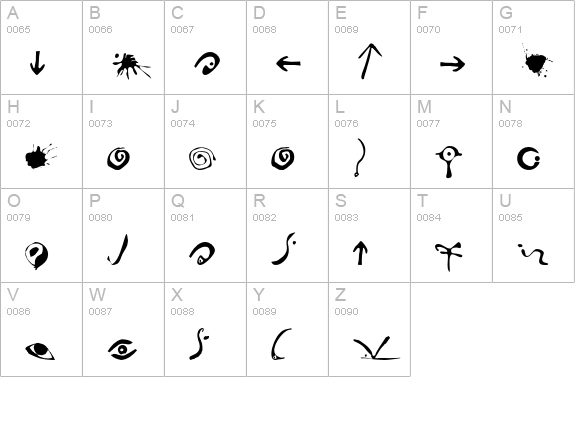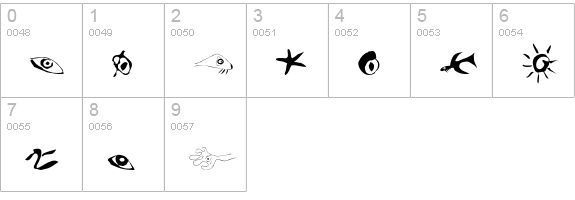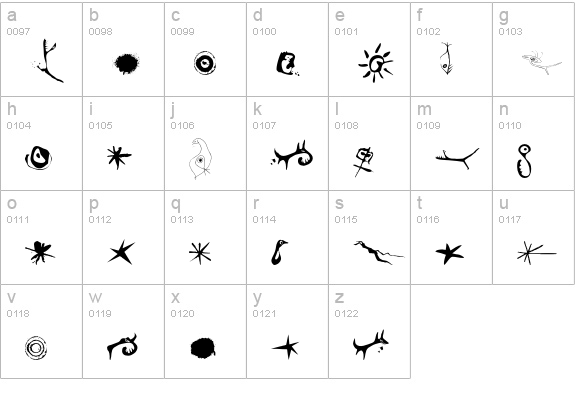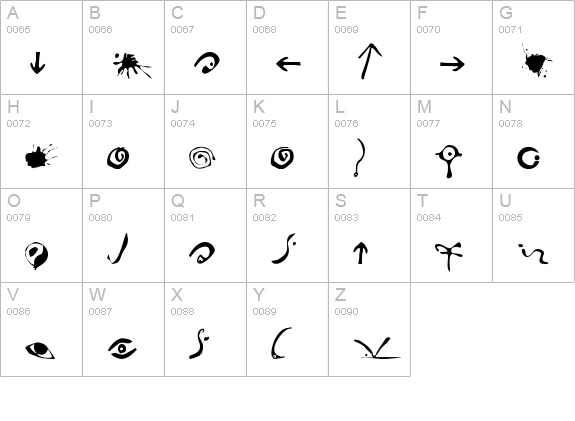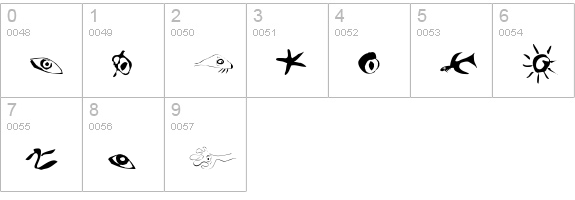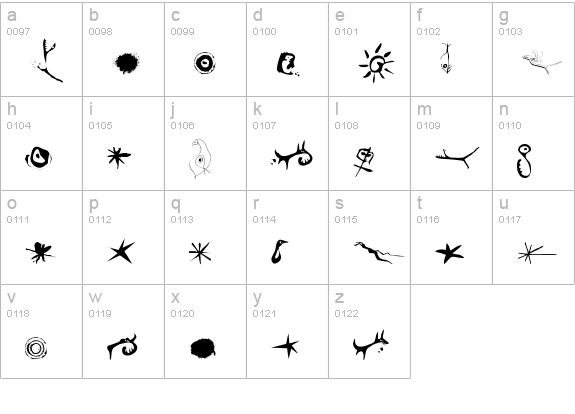
STROKE-Off font is a stunning display typeface that exudes boldness and energy. With its striking strokes and modern aesthetic, this font is sure to make a powerful statement in any design project. The unique combination of sharp edges and smooth curves gives STROKE-Off font a dynamic and engaging look that will captivate your audience. Best of all, STROKE-Off font is completely free to download at FontsMarket.com. Now you can add this eye-catching font to your collection without breaking the bank. Whether you're creating posters, logos, or social media graphics, STROKE-Off font will elevate your designs and help you stand out from the crowd. Download it today and unleash your creativity with this versatile and impactful typeface.